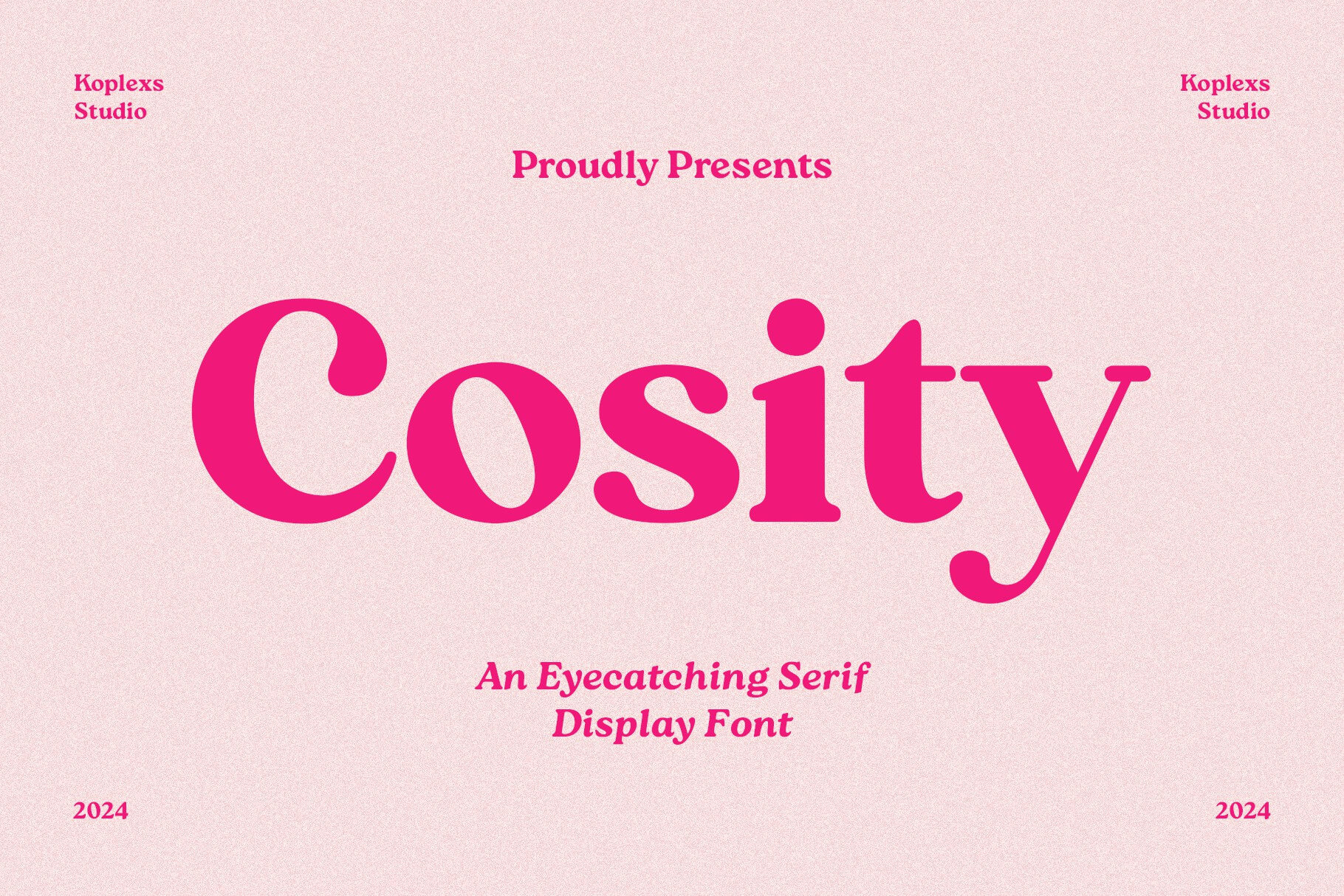
Cosity - Display Serif Font
Cosity - Display Serif Font, a sleek and sophisticated typeface designed to elevate your projects to new heights. With both regular and italic styles included, Cosity offers versatility and elegance in every stroke.
Crafted with precision and finesse, this font exudes charm and professionalism, making it perfect for a wide range of applications. Whether you're designing a logo, crafting invitations, or creating captivating headlines, Cosity brings a touch of refinement to any project.
Its clean lines and distinct serifs command attention, while its italic counterpart adds a dash of flair and dynamism. From branding to editorial design, Cosity effortlessly adapts to suit your creative vision, ensuring your message resonates with style and sophistication.